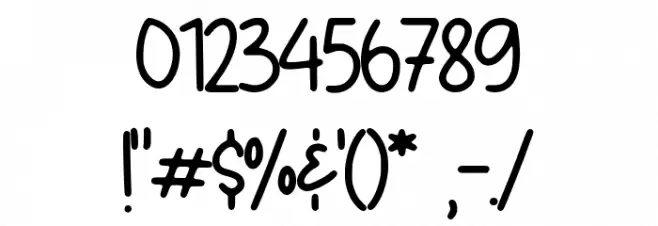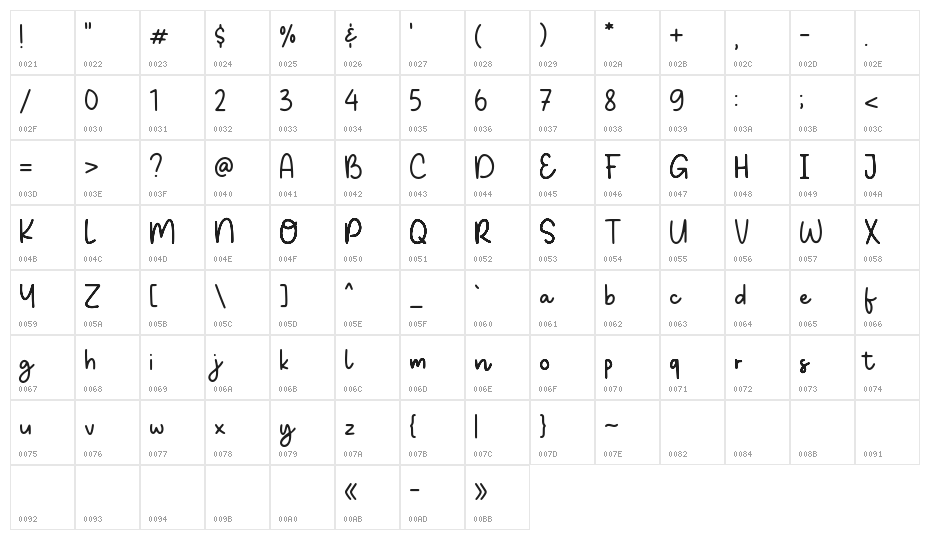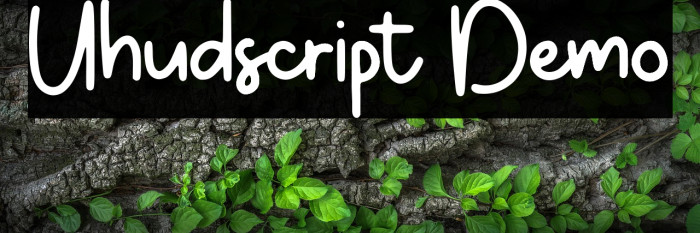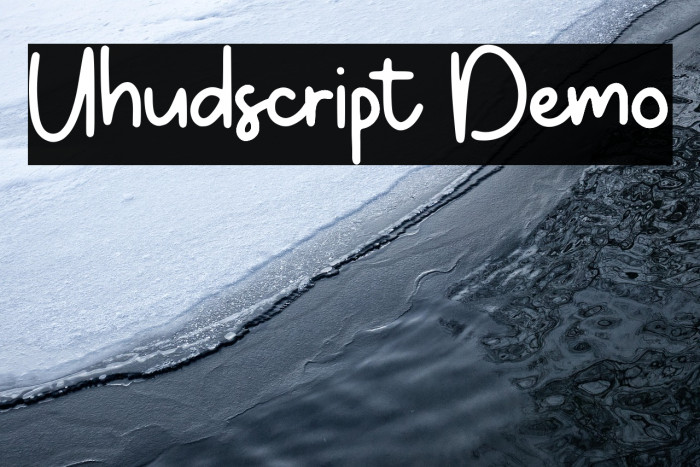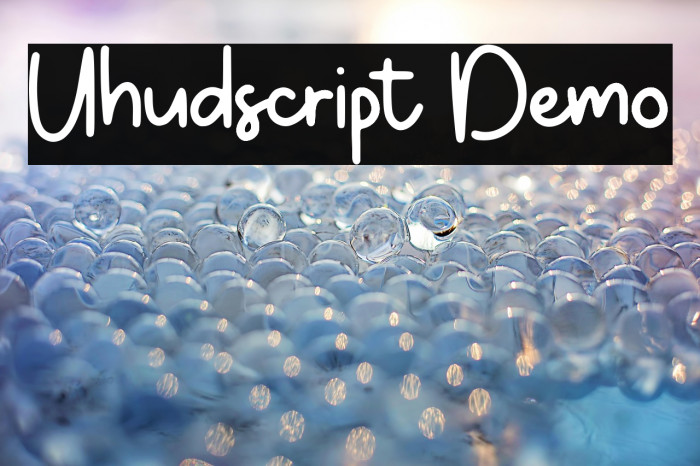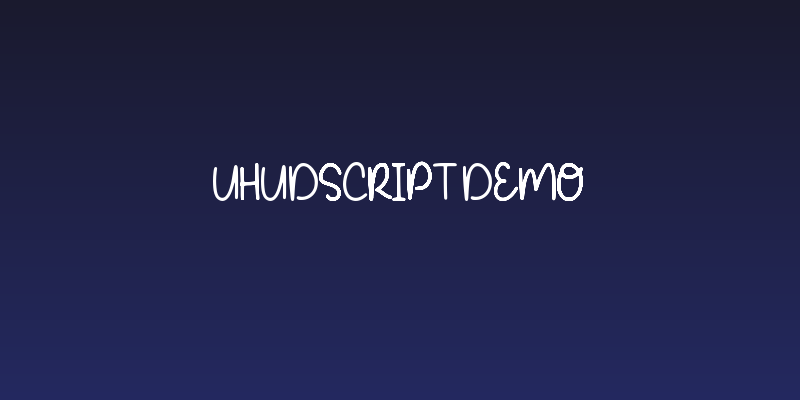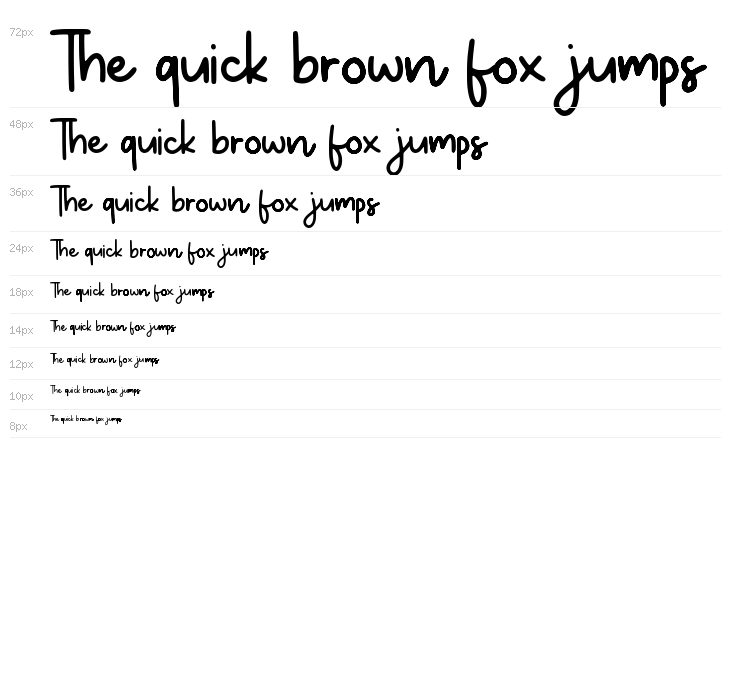
Uhudscript Demo Font
Uhudscript Demo Description
This font features a playful and casual handwritten style, characterized by smooth, rounded edges and a consistent stroke width. The uppercase letters are bold and slightly whimsical, while the lowercase letters maintain a friendly and approachable appearance. The numerals are clear and easy to read, matching the overall informal aesthetic. Special characters are included, maintaining the same playful design. The font's overall look is modern and relaxed, making it ideal for projects that require a personal touch.
| Use Case | Headlines, Informal text, Branding |
| Proposed Projects | Ideal for greeting cards, children's books, casual branding, and social media graphics. |